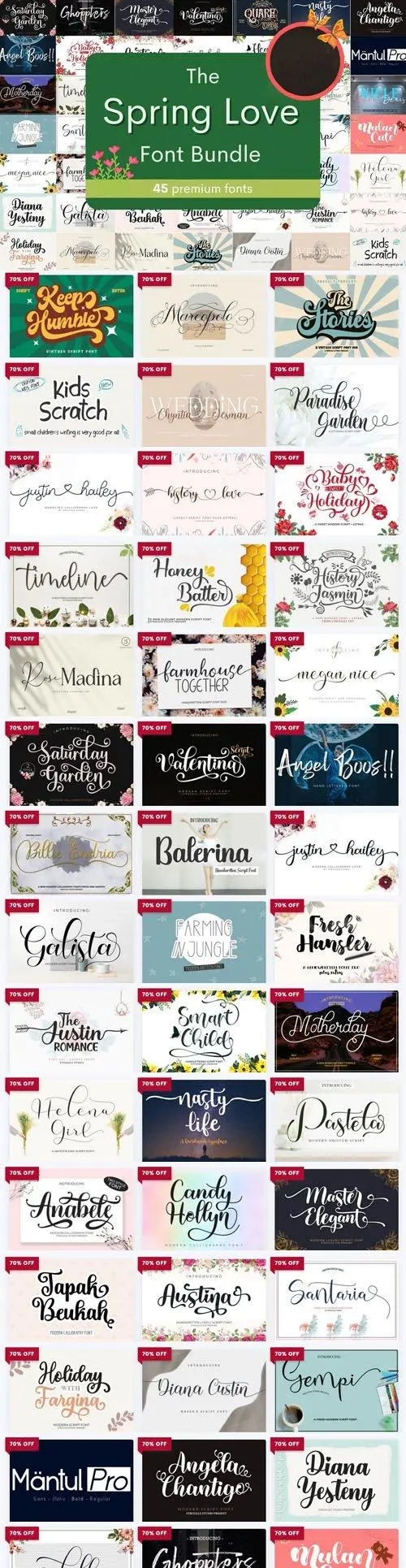
The Spring Love Font Bundle – 45 Premium Fonts
Introducing the Spring Love Font Bundle, a curated collection of 45 premium fonts designed to elevate your creative projects. This bundle features a diverse range of styles, from elegant scripts to bold display fonts, ensuring you have the perfect typeface for any occasion.
• 45 unique font styles
• Variety of weights and styles, including script, serif, and sans-serif
• Includes multilingual support for global accessibility
• Ideal for branding, logos, invitations, and social media graphics